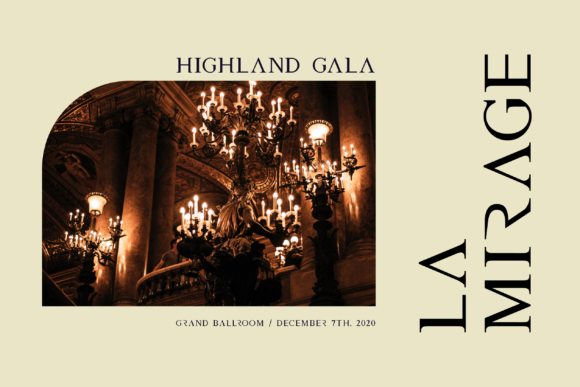
Royal Font
Royal is a luxurious and elegant serif font. This versatile font has a wide spectrum of applications ranging from greeting cards to headlines and is guaranteed to add a delicate feel to your next project.